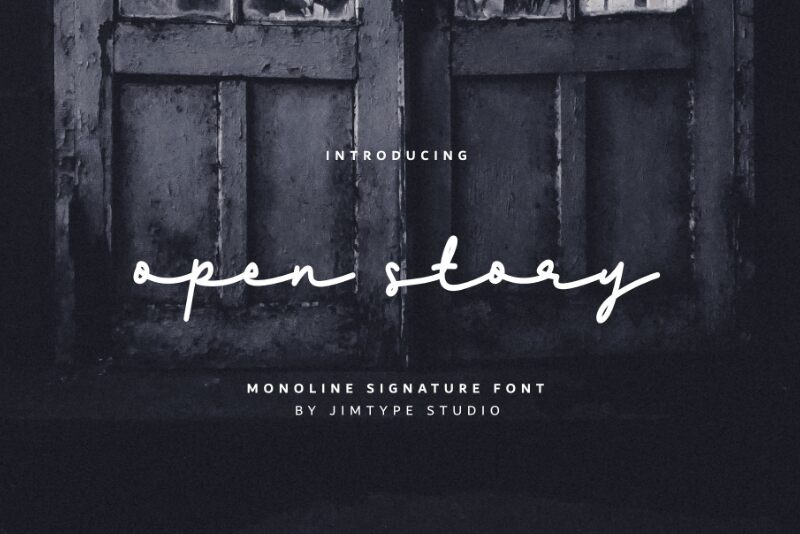
Open Story is a captivating handwritten font crafted by the talented team at Jimtype Studio. This signature-inspired typeface exudes a sense of effortless elegance, with its flowing strokes and subtle variations conveying a touch of personal charm. The organic, expressive nature of the letterforms evokes a sense of authenticity, making it an ideal choice for projects seeking a heartfelt, handcrafted aesthetic.
Open Story's versatility shines through, making it a versatile selection for a wide range of design applications. Its unique character lends itself beautifully to branding and packaging, where the font's personality can truly shine. Equally at home in editorial layouts, wedding stationery, and even social media content, Open Story adds a touch of personalized flair to any project.